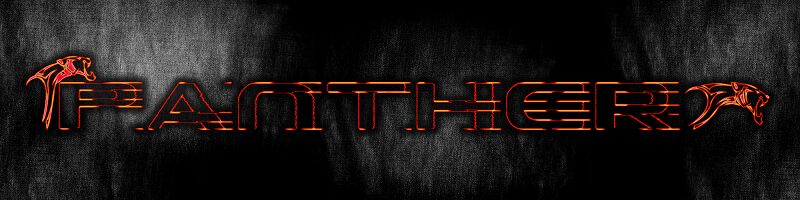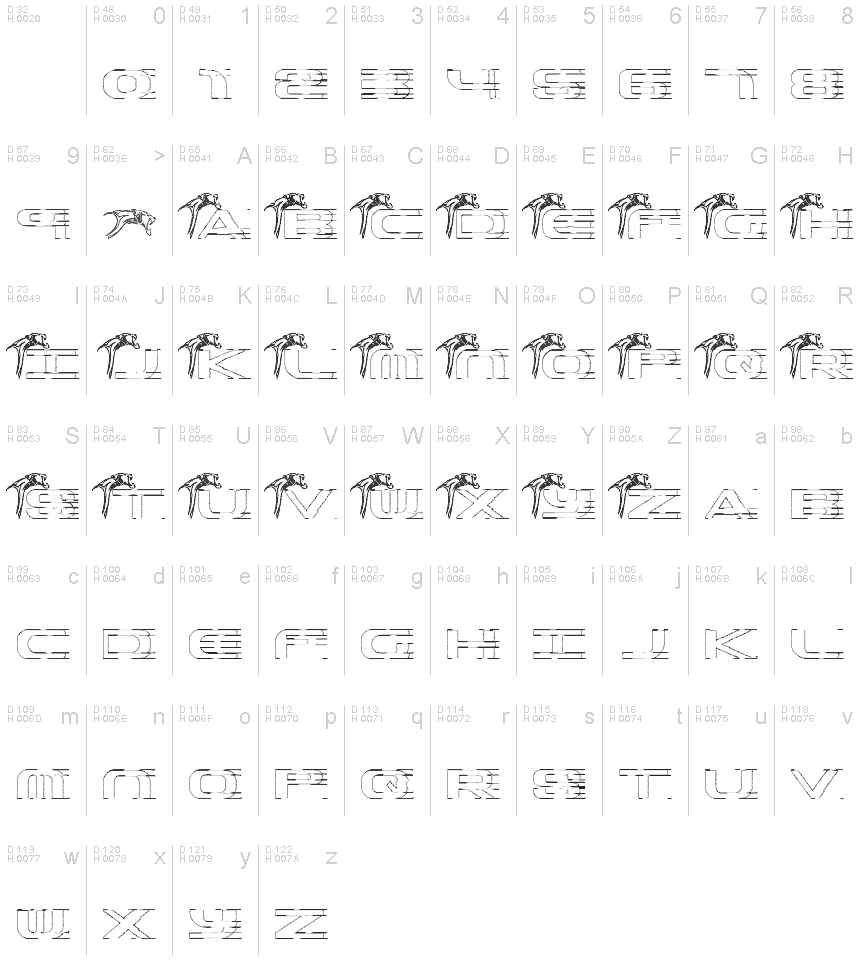
Panther
Panther, a striking display font designed by Isaac K, boldly defies conventional typography. Its distorted, expanded form exudes an edgy, dynamic presence that commands attention.
The font's distinctive, almost animalistic aesthetic lends itself to impactful branding, eye-catching headlines, and avant-garde design applications. Panther's unorthodox nature makes it a versatile choice for projects seeking to convey a sense of power, rebelliousness, or unconventionality.
Its bold, unapologetic style can elevate digital and print media, adding visual intrigue and memorable impact to a wide range of creative endeavors.